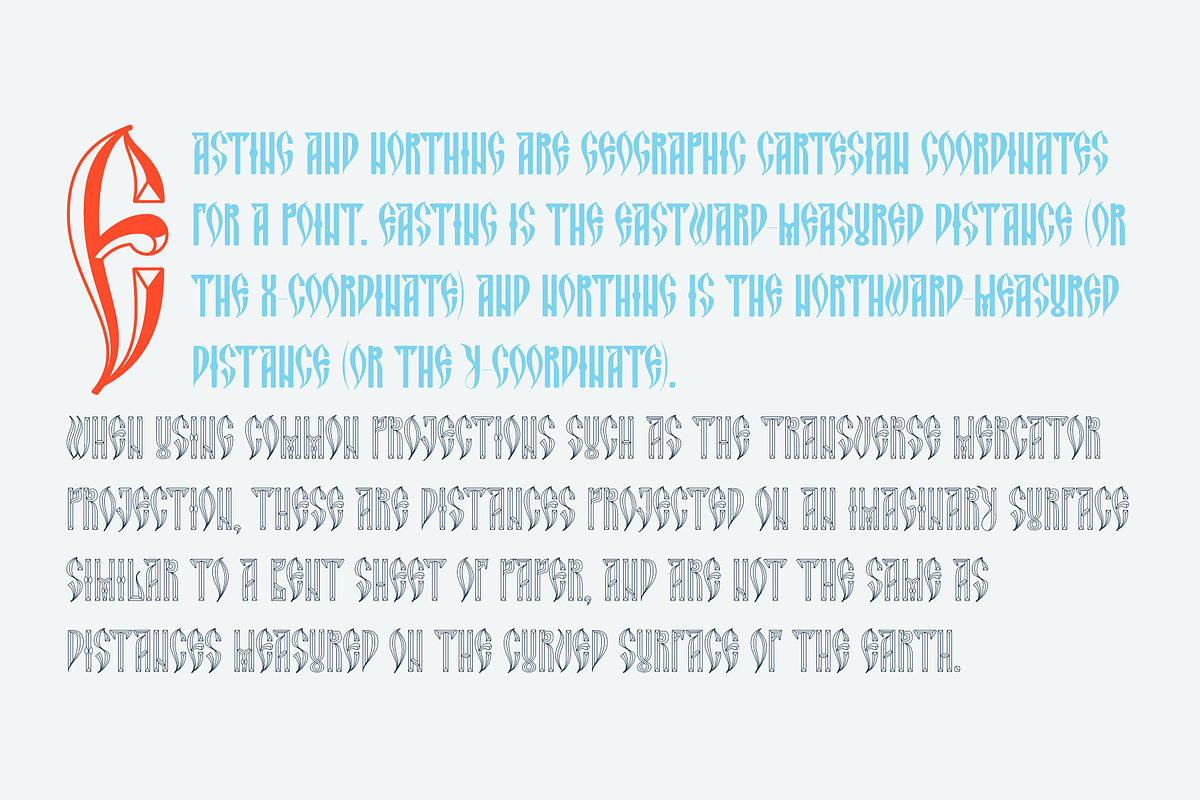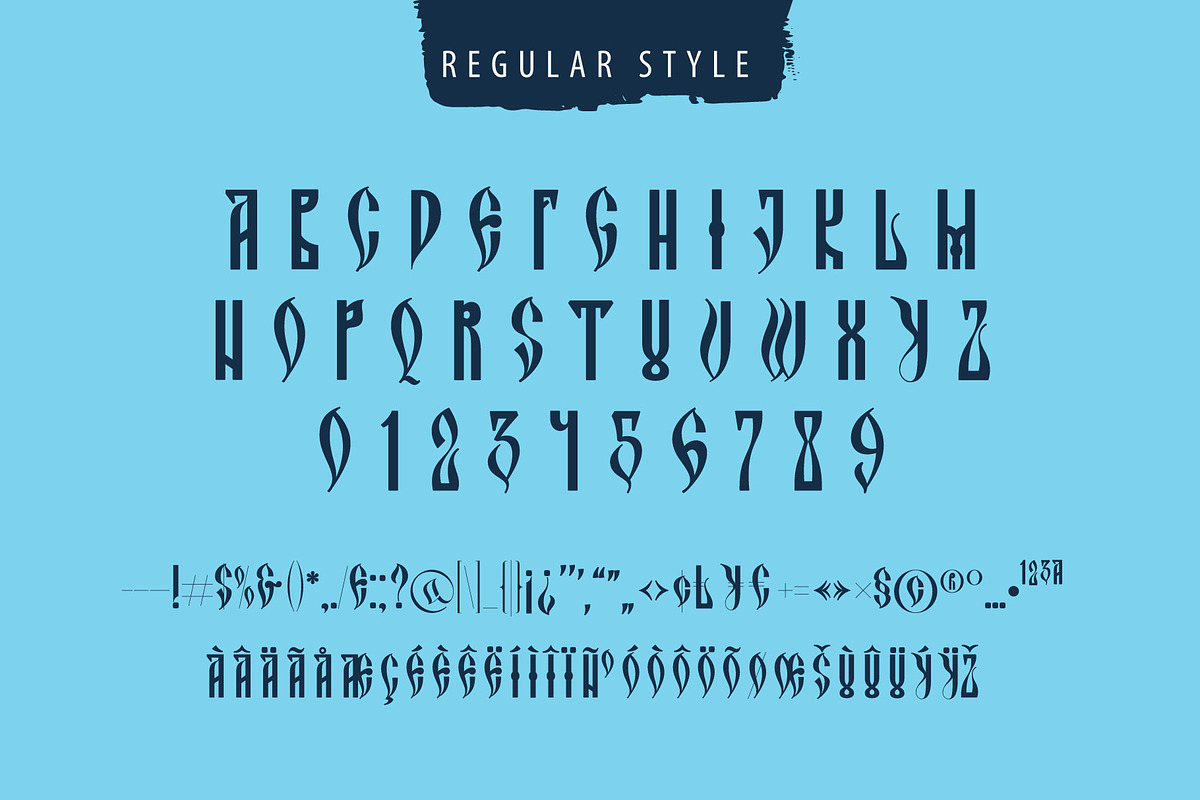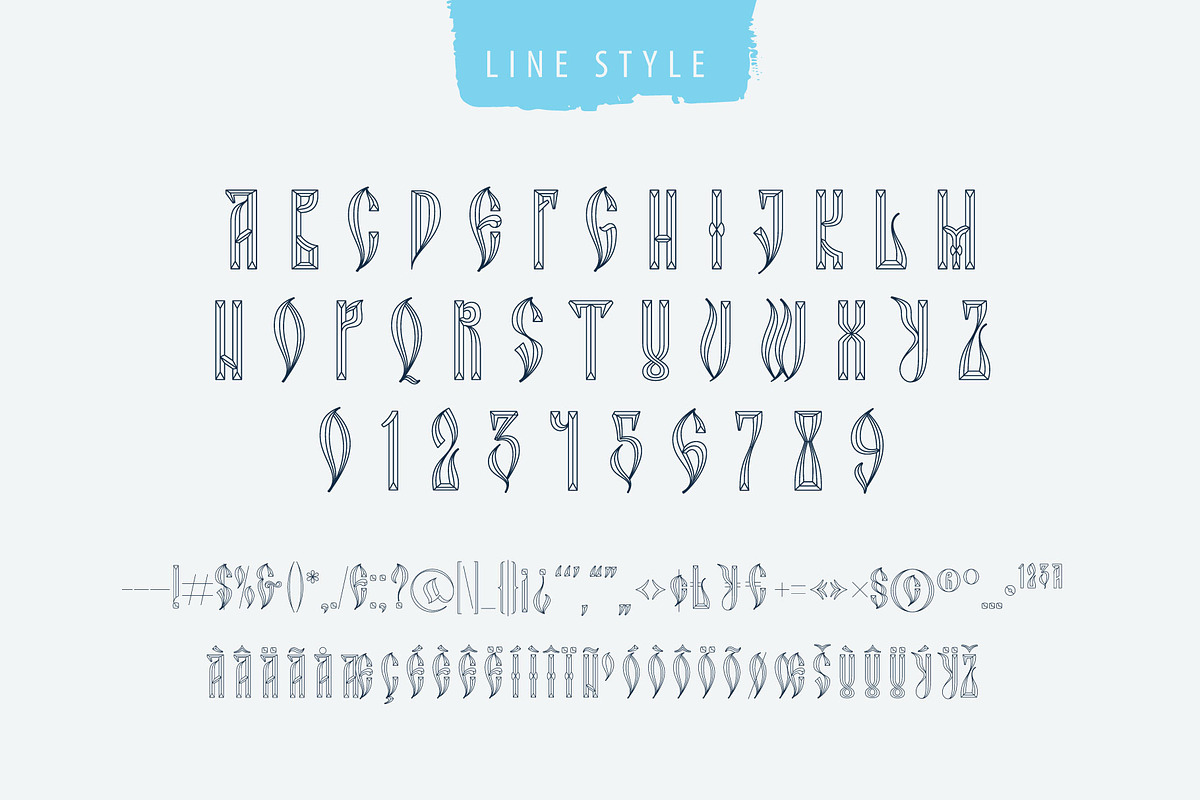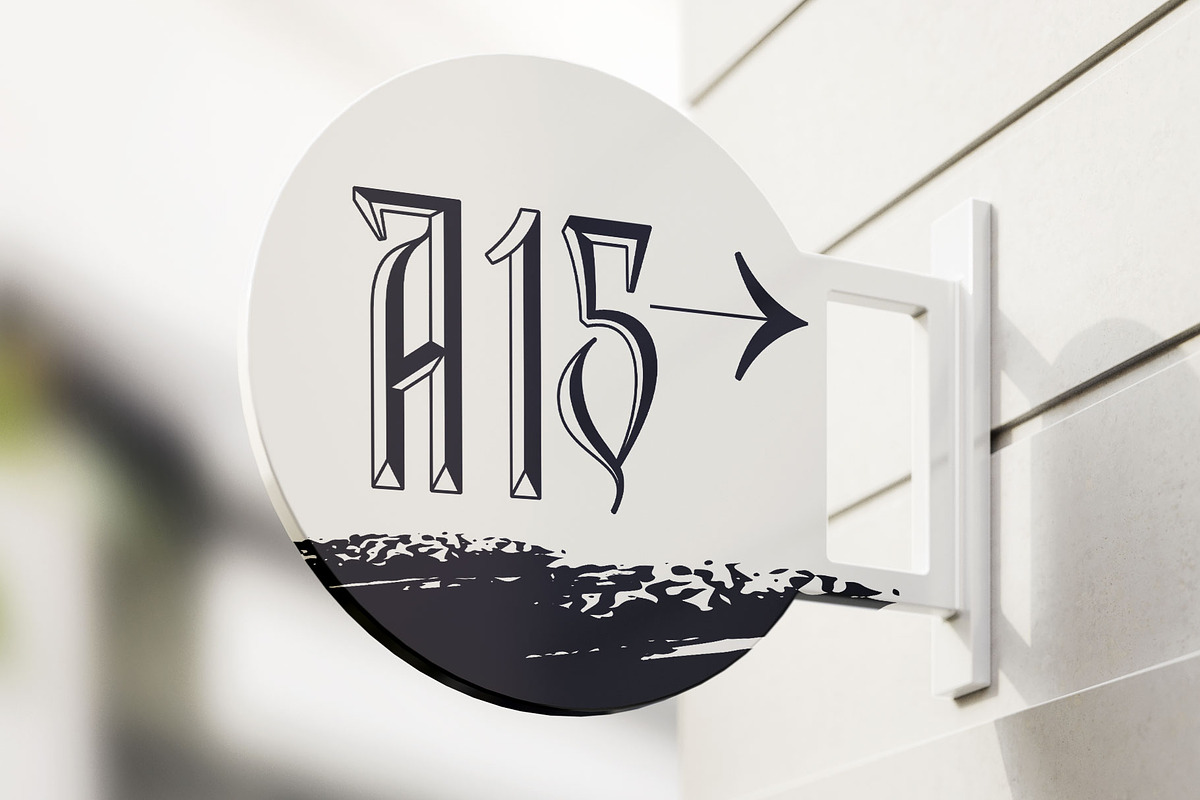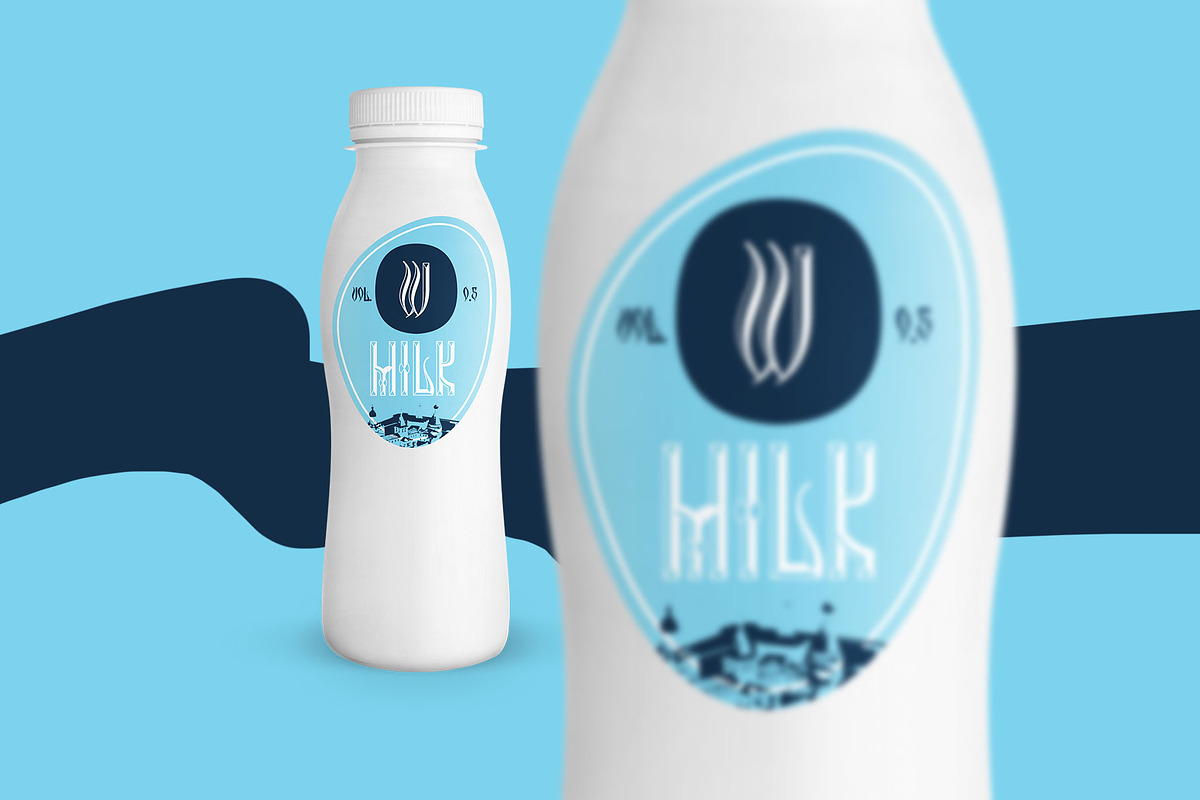
Northern Monk blackletter font
Hi, guys! I like creating fonts with a story. Once me and my family were travelling and exploring the northern area of our region and came across an inscription carved on the wall of a monastery tower. It inspired me to create a full set of a multulingual font, but with no lowercase letters.
- It inspired me to create a full set of a multulingual font, but with no lowercase letters.
- Only uppercase Multilingual support Numbers Symbols Punctuation Ligatures I hope you enjoy with this fonts.